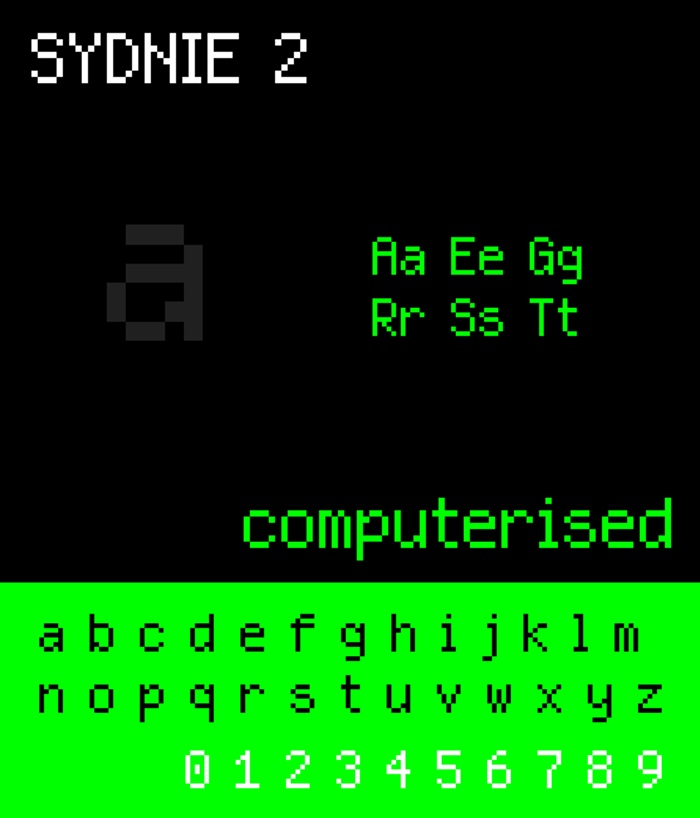
NBP Sydnie2 Font
A reworked version of the QuickTime font, Sydnie, streamlined for greater legibility and less distortion when scaling down.
Sydnie2: a slight redesign of Sydnie.
Sydnie2 Regular: a faithful recreation of the original design.
Sydnie2 SmallCaps: features small caps instead of lowercases
Sydnie2 Scoreboard: an LED simulation font